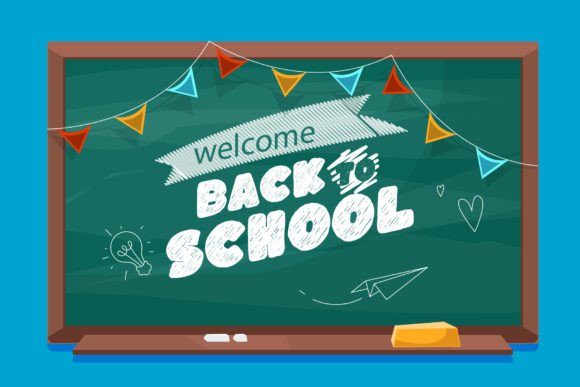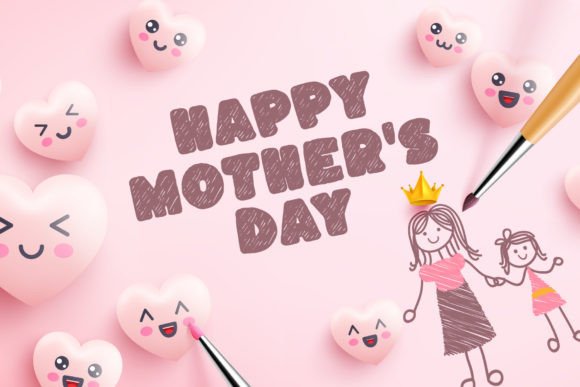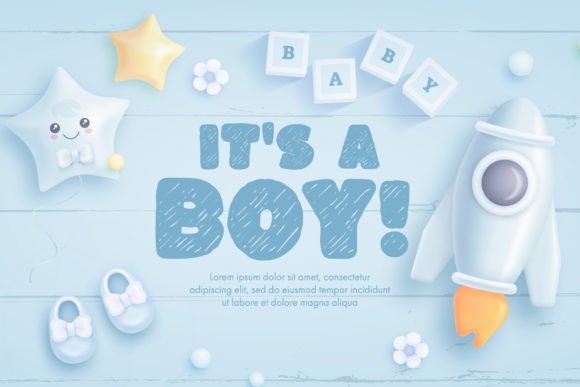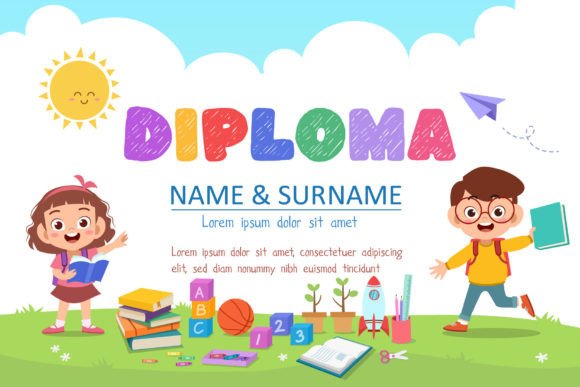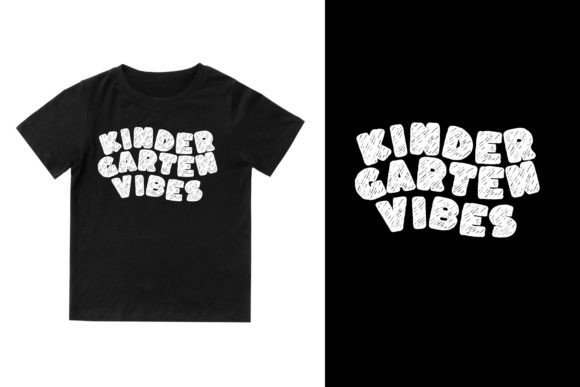
Bringing Back the Magic of the Classroom
Do you remember the excitement of holding a freshly sharpened pencil, staring at a blank piece of paper, and getting ready to create something amazing? For many of us, the thrill of learning and self-expression begins in the classroom. And what better way to capture that essence than with the Blackboard Font?
Blackboard Font is a display font designed to evoke the nostalgia of chalkboard scribbles and handwritten notes. Its playful, whimsical style makes it perfect for kids’ themes, educational projects, and any design that needs a dash of fun. Whether you’re a seasoned designer or a crafty enthusiast, this versatile font is a valuable addition to your toolkit.
With its unique charm, Blackboard Font can elevate your projects from ordinary to extraordinary. From digital designs to handmade crafts, this font is sure to bring a smile to your face and a touch of personality to your work.
Blackboard Font Key Features
- Font Family: Blackboard Bold, Blackboard Italic, and Blackboard Regular are the main font styles available.
- Resolution: The font is designed to be scalable, making it suitable for both low-resolution and high-resolution displays.
- Unique Characteristics: The Blackboard Font is known for its bold, sans-serif design and distinctive letterforms, making it highly legible and easy to read.
Designer Review: Blackboard Font
As a designer, I’ve had the chance to work with various fonts, and Blackboard Font is one that has both impressed and disappointed me. Here’s my honest take on it.
- Unique aesthetic: The Blackboard Font has a distinctive look that sets it apart from other fonts. Its playful, handwritten style makes it perfect for adding a touch of whimsy to designs.
- Easy to read: Despite its informal appearance, the font is surprisingly easy to read, especially in larger sizes.
- Customization options: Blackboard Font comes with various styles and weights, giving designers plenty of flexibility to experiment with different looks.
- Limited legibility in small sizes: While the font is easy to read in larger sizes, it becomes increasingly difficult to decipher in smaller sizes.
- Lack of consistency: The font’s irregularities can make it challenging to maintain consistency across different designs.
Overall impression
Blackboard Font is a fun and versatile font that can add a playful touch to designs. However, its limitations in terms of legibility and consistency mean it’s not suitable for all projects. As a designer, I’d recommend using it for casual, creative projects where its unique aesthetic can shine. For more formal or high-stakes projects, I’d opt for a more traditional font.
The Blackboard font is ideal for creating a distressed, vintage look in your designs. Some common use cases include:
- Creating a retro-themed poster or flyer.
- Designing a distressed text effect for a logo or branding.
- Adding a vintage touch to a photo or graphic.